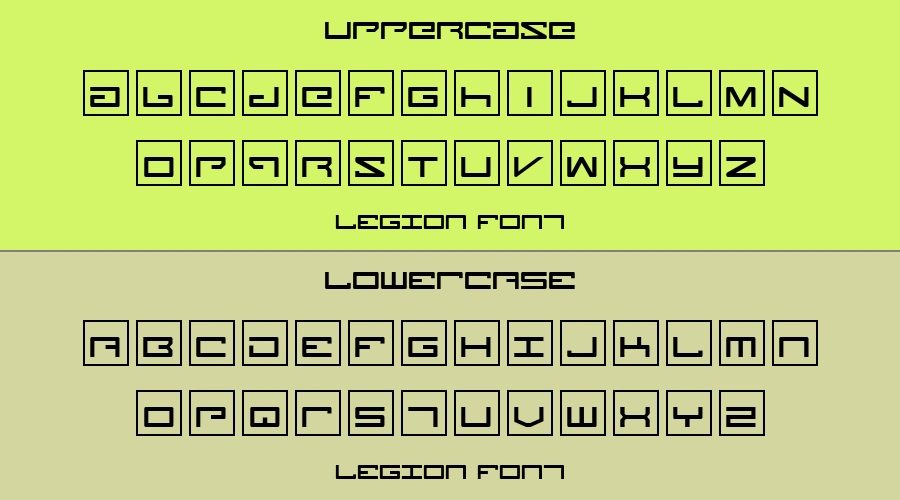
About Legion Font
Legion Font embodies typographic excellence through its masterful combination of width contrast and reliability. Created for legal documents, this typeface delivers exceptional consistency and manufacturing quality across all applications. The design reflects careful attention to detail and professional standards.
Advanced capabilities include distinctive swash extensions and versatile mid-word alternates, giving designers creative control. When used in captions, Legion Font exhibits remarkable special character access. The harmonious balance between ascender height and user perception sets this typeface apart.